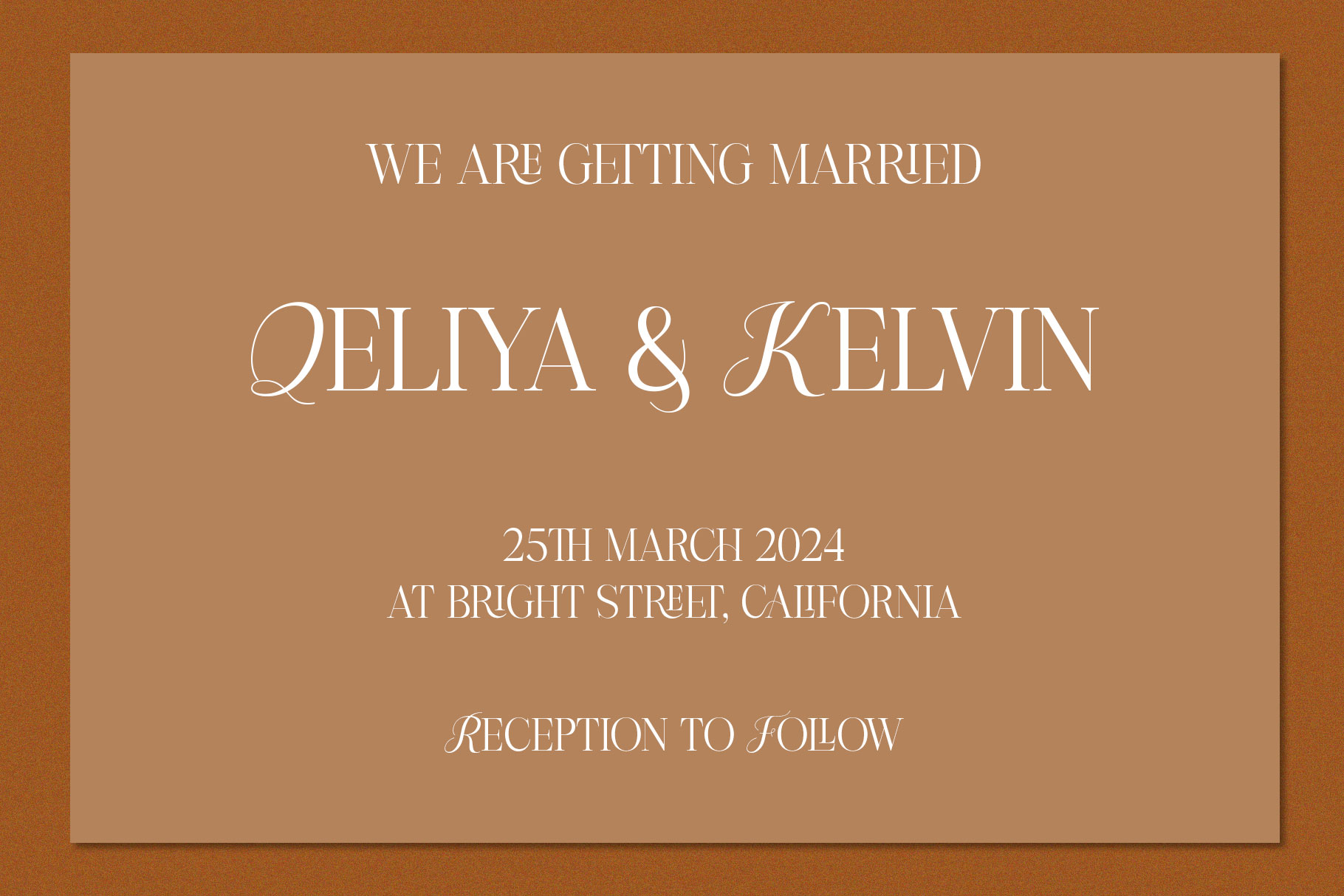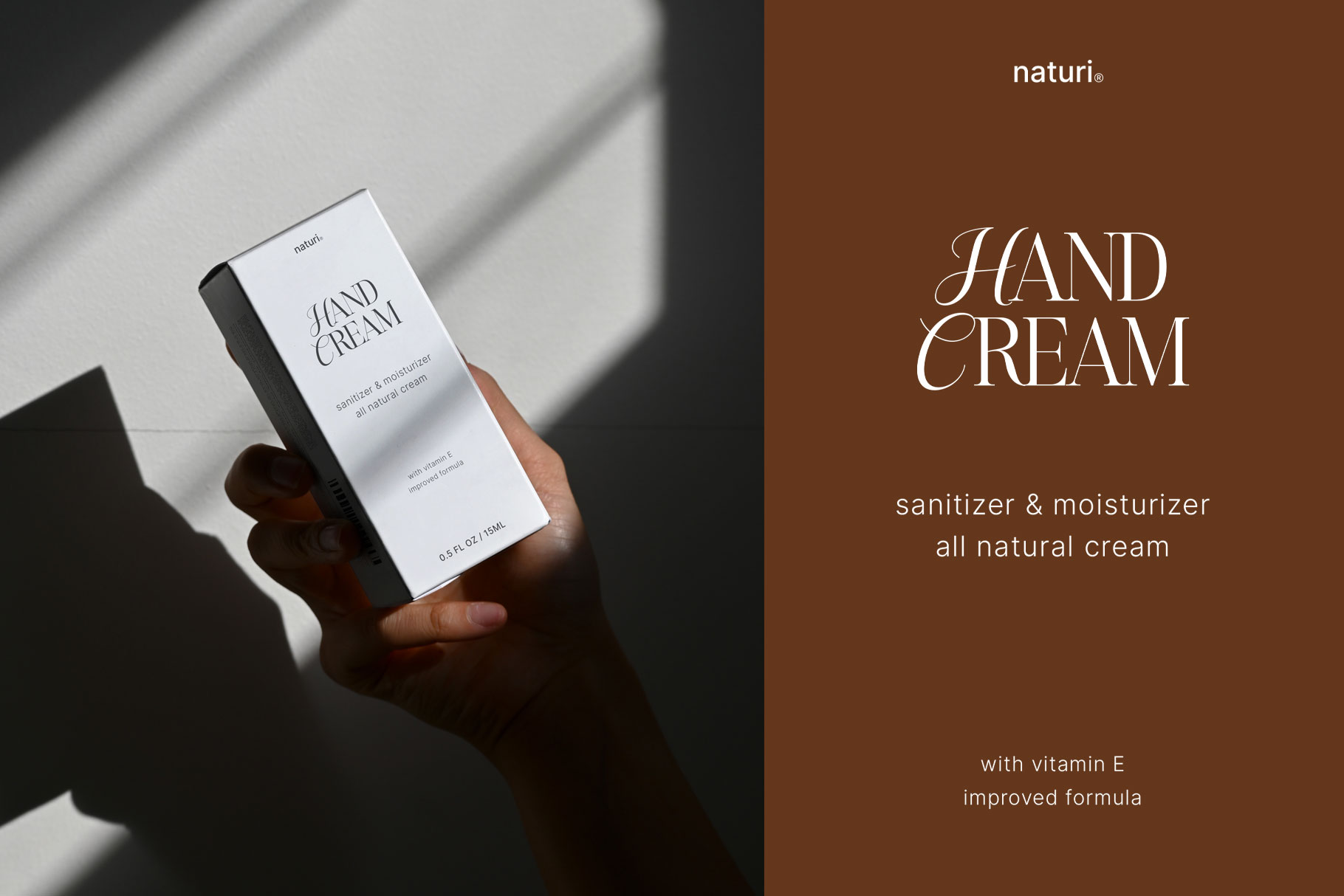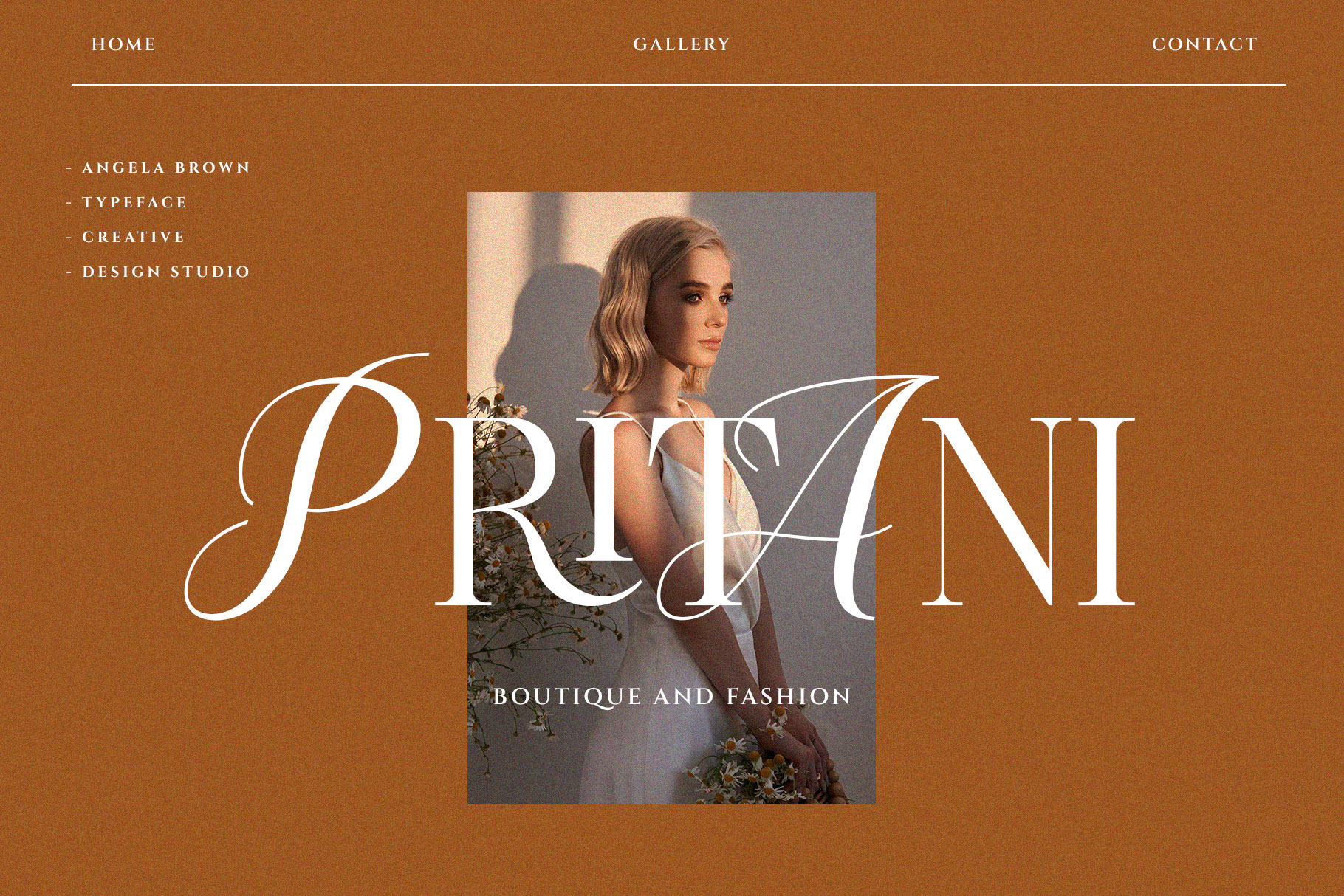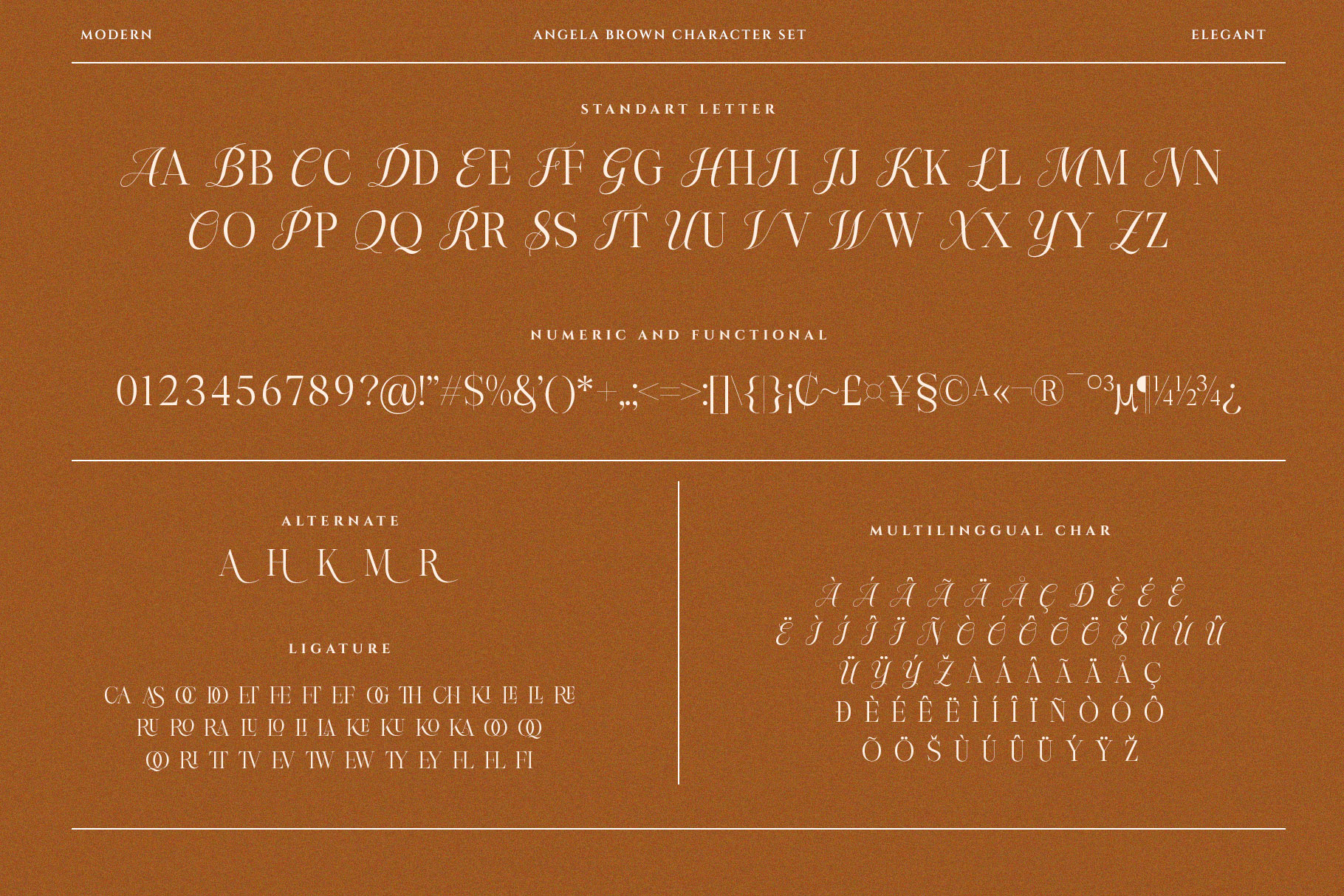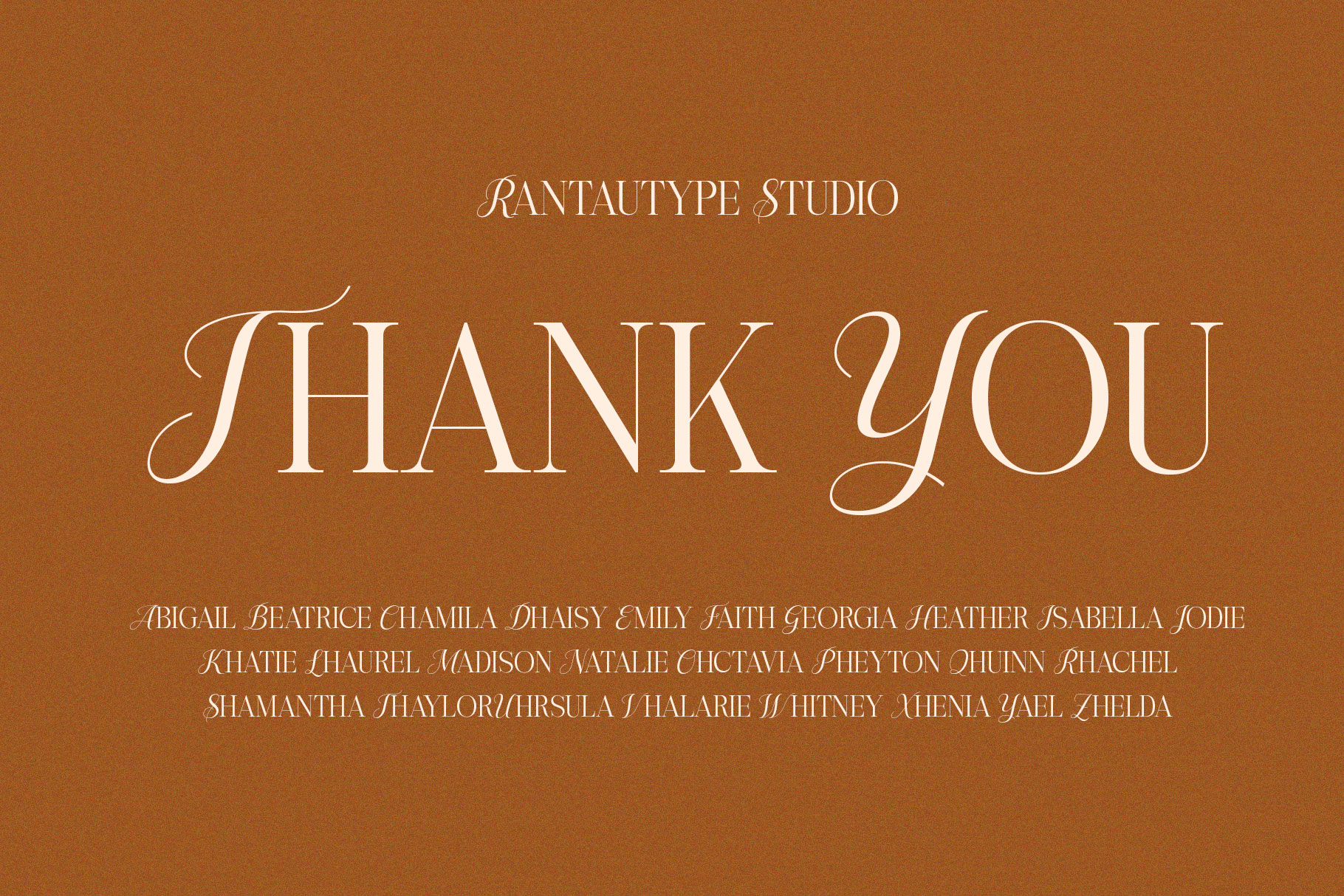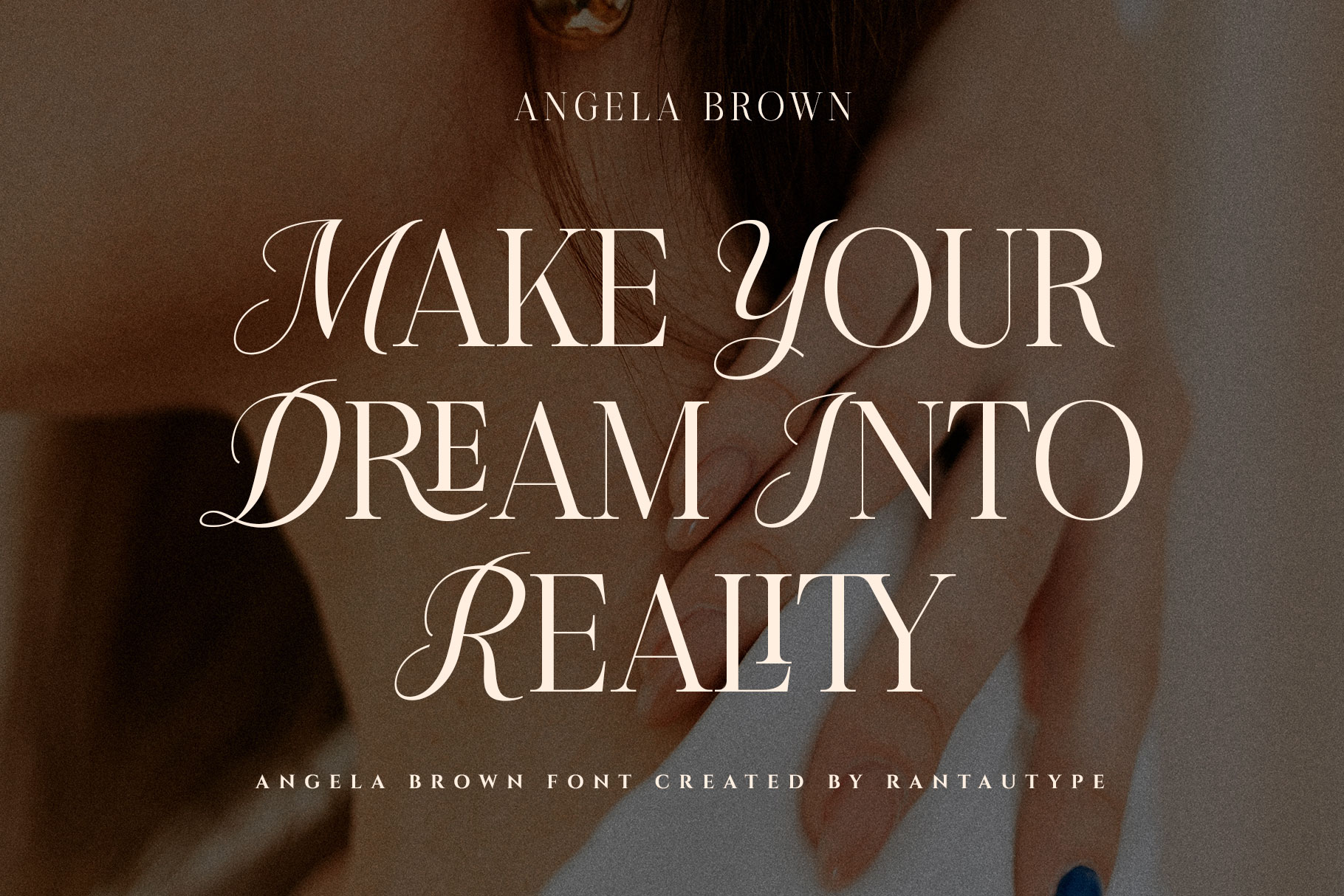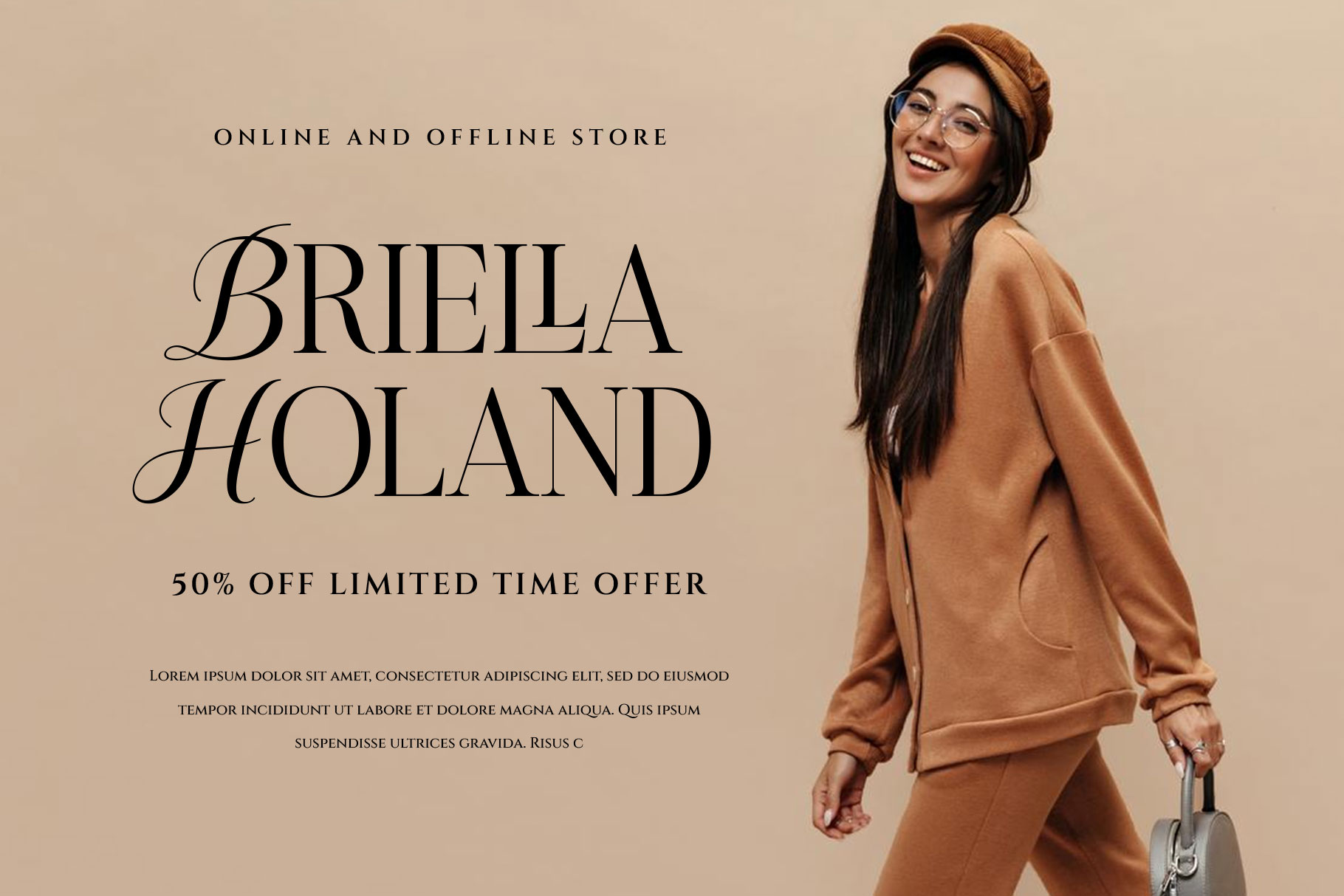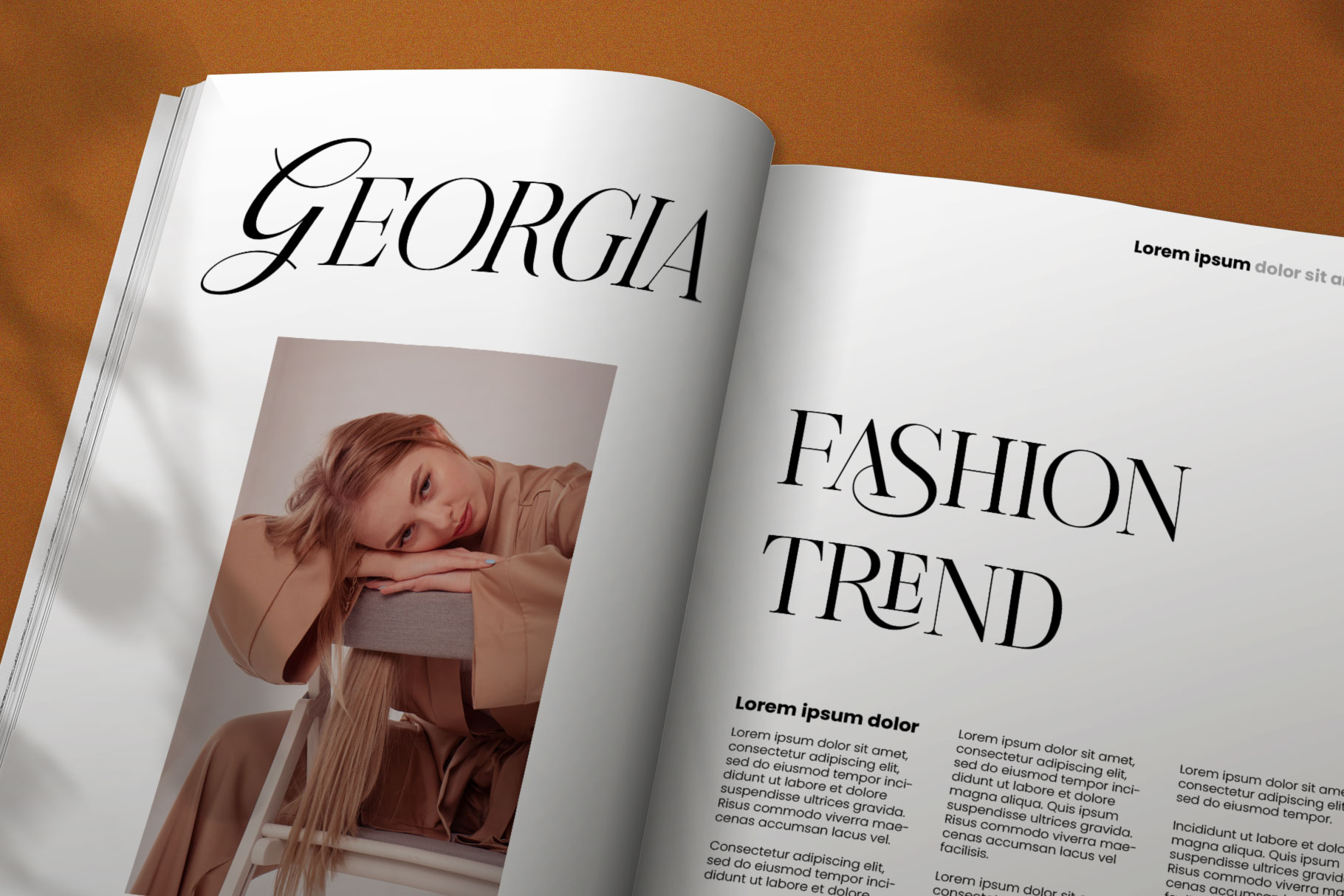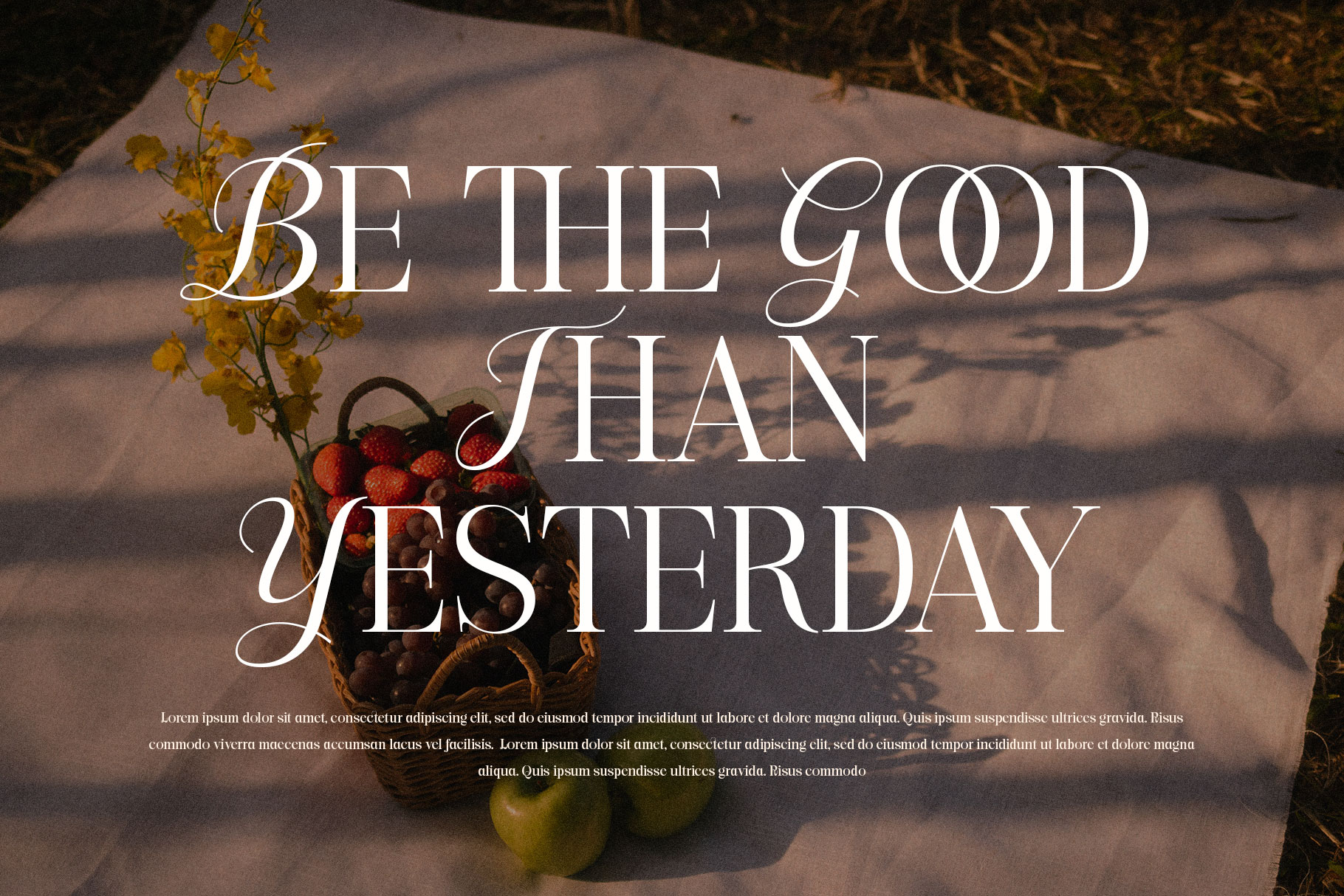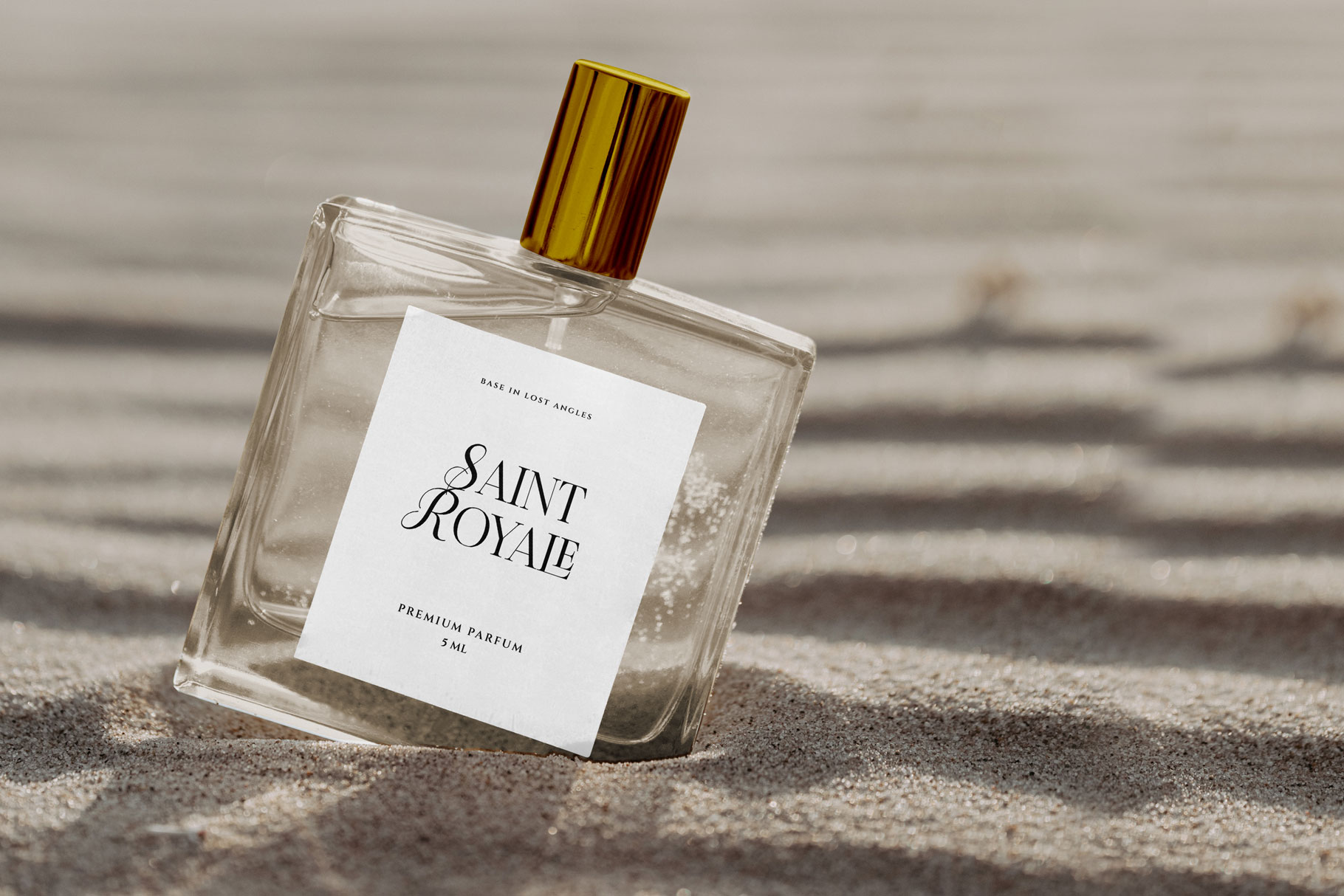
Angela Brown Serif Combination Font
Angela Brown is a beuatiful and inspiring mix of classic calligraphy and modern serif. I’ve also love combination the calligraphy and serif make classic and nostalgic. Angela Brown brings a touch of charm and sophistication to branding, editorial designs, and more.
Angela Brown – made mainly for headlines, titles, and is well-suited for advertising, vintage mood board, branding, logotypes, packaging, titles, editorial design, modern logos, websites, social media quotes, wedding branding, modern and vintage design. Now you can choice Angela Brown to make a beuatiful design.